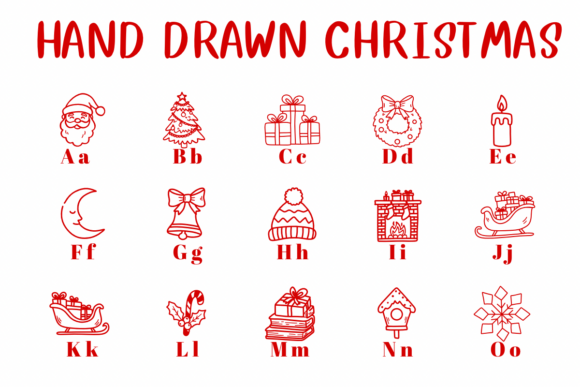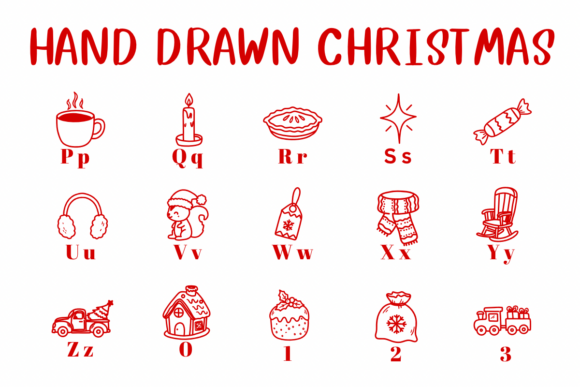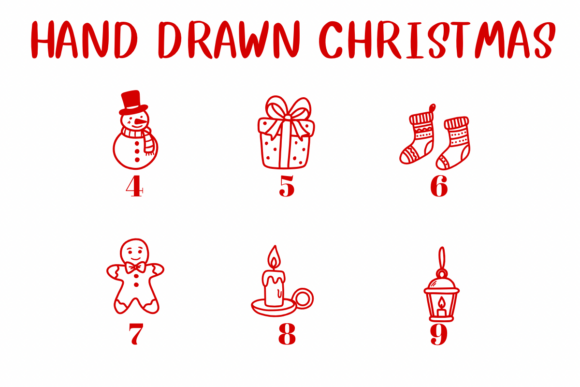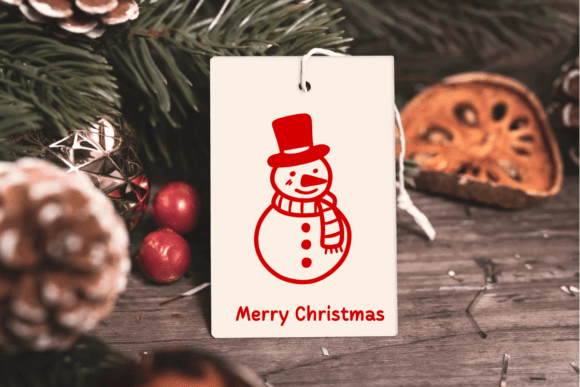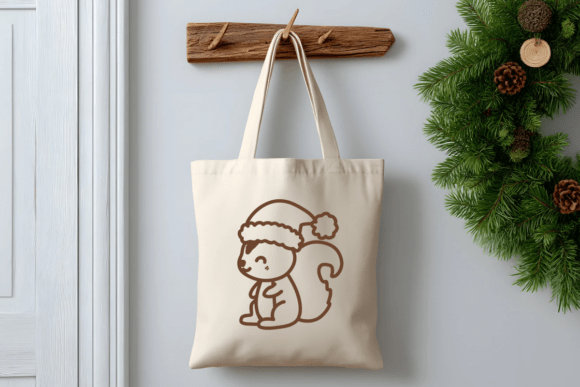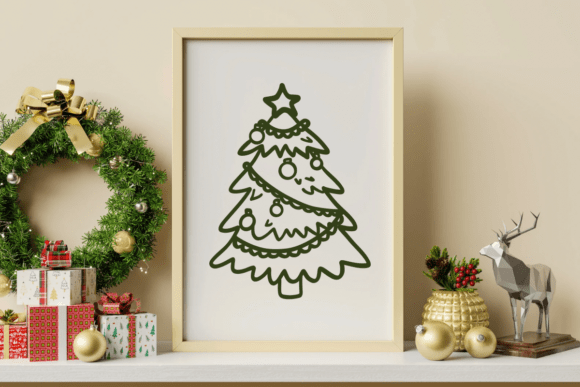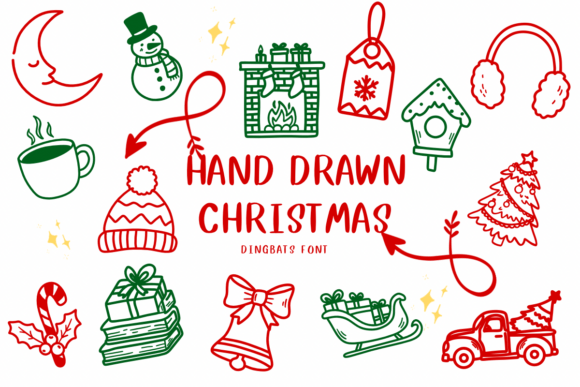
Bring Festive Cheer to Your Designs with the Hand Drawn Christmas Dingbats Font!
The holiday season is upon us, and what better way to spread festive cheer than with a delightful and playful font that captures the whimsy of Christmas? Introducing the Hand Drawn Christmas Dingbats Font, a charming collection of holiday doodles that will add a warm and joyful touch to your designs. This adorable font features a range of hand-sketched illustrations, including snowmen, gifts, trees, and cozy winter icons, perfect for greeting cards, holiday packaging, party invites, or any Christmas-themed project.
A Playful and Whimsical Font for the Holiday Season
The Hand Drawn Christmas Dingbats Font is a unique and eye-catching way to add some festive flair to your designs. Each character in the font is carefully hand-drawn to create a charming and whimsical feel that’s sure to put a smile on anyone’s face. From snowflakes to stockings, and from bells to baubles, this font has everything you need to create a holiday design that’s merry and bright.
Whether you’re a professional designer or a crafter looking for a special touch, the Hand Drawn Christmas Dingbats Font is the perfect addition to your holiday projects. Use it to create:
• Greeting cards that will make your loved ones feel special
• Holiday packaging that’s sure to stand out on the shelves
• Party invites that will get your guests in the holiday spirit
• Social media graphics that will make your feed merry and bright
• Blog posts that will add a touch of festive cheer to your content
Key Features of the Hand Drawn Christmas Dingbats Font
Here are just a few of the key features that make the Hand Drawn Christmas Dingbats Font so special:
• Hand-drawn illustrations: Each character in the font is carefully hand-drawn to create a unique and whimsical feel.
• Charming holiday doodles: The font features a range of holiday doodles, including snowmen, gifts, trees, and cozy winter icons.
• Playful and festive: The font is perfect for adding a playful and festive touch to your designs.
Tips for Using the Hand Drawn Christmas Dingbats Font
Here are a few tips for getting the most out of the Hand Drawn Christmas Dingbats Font:
• Mix and match characters: Don’t be afraid to mix and match different characters to create a unique and eye-catching design.
• Experiment with colors: The font looks great in a range of colors, from traditional red and green to more modern shades like turquoise and coral.
• Add your own text: Use the font to add a personal touch to your designs, whether it’s a holiday message or a festive phrase.
Get Ready to Bring Festive Cheer to Your Designs!